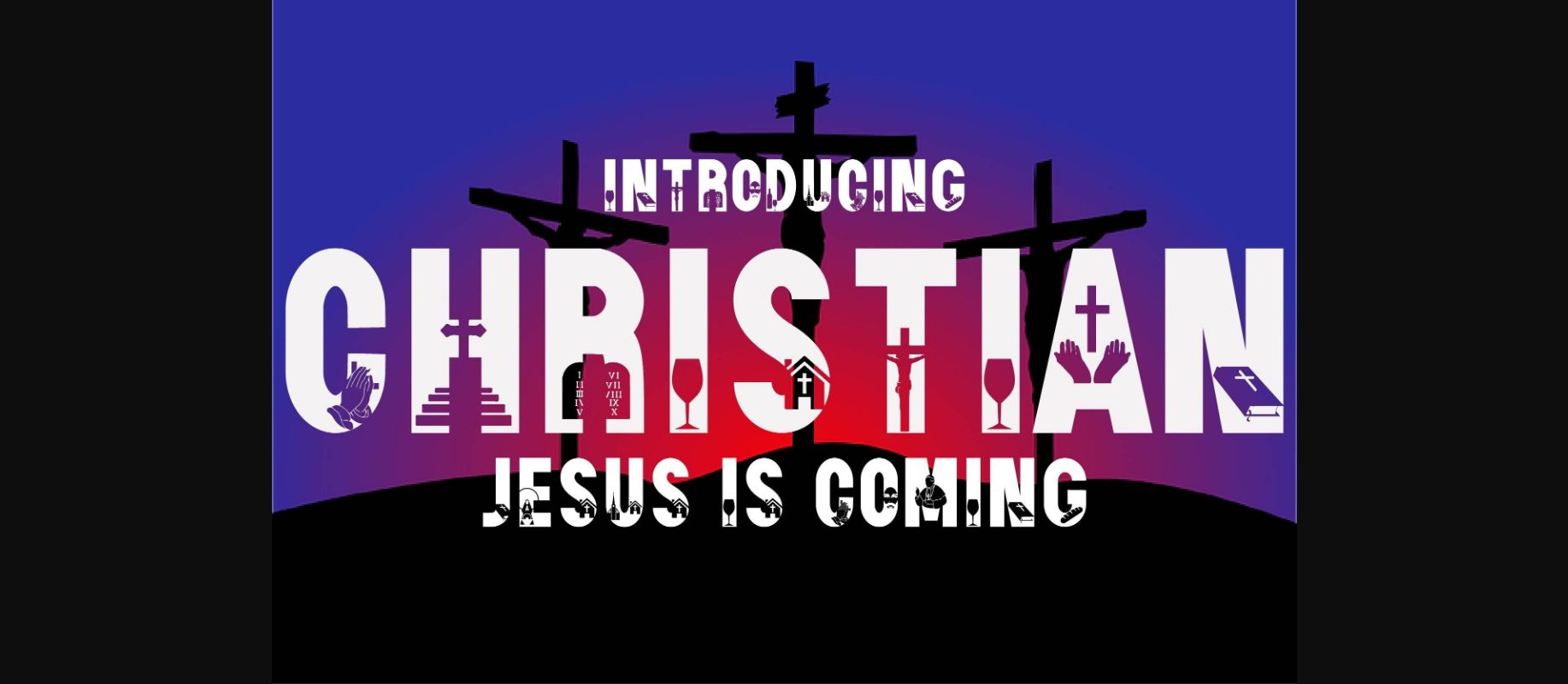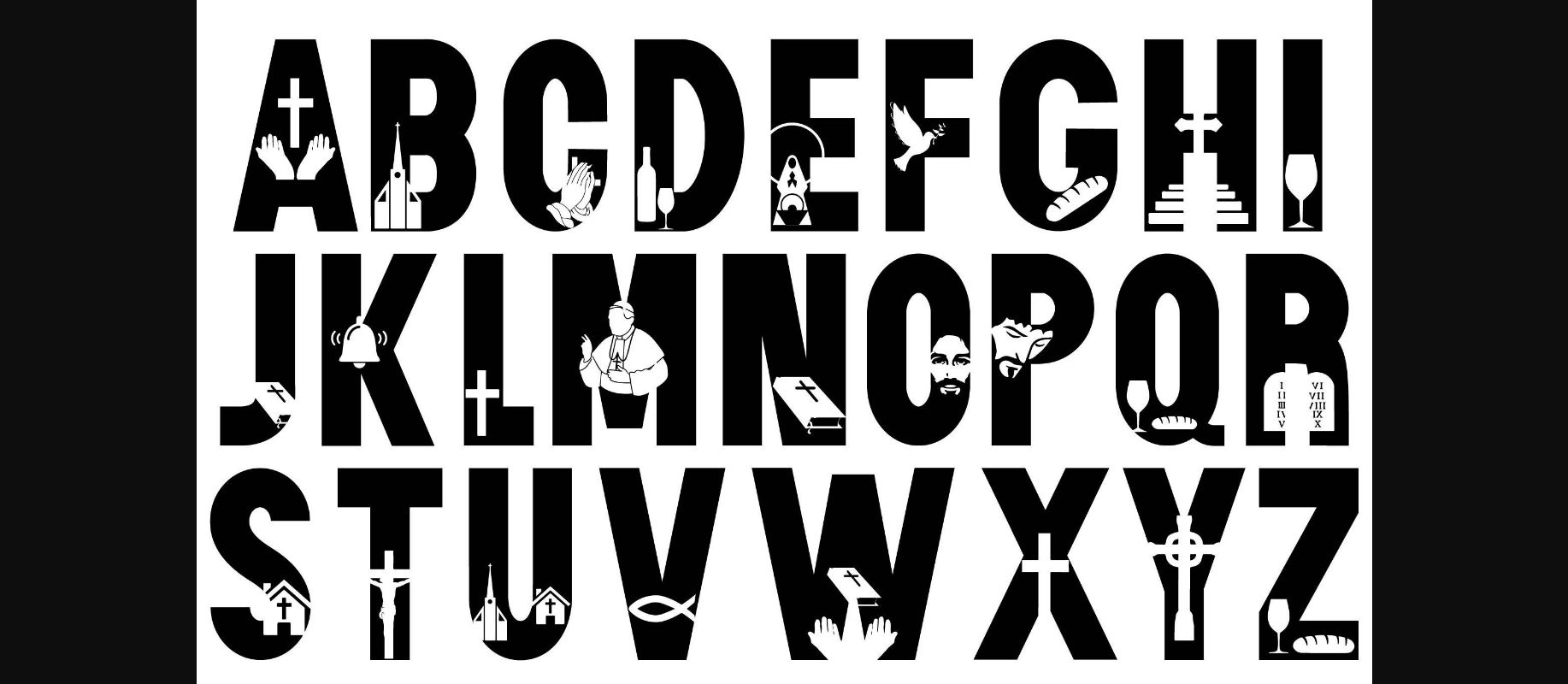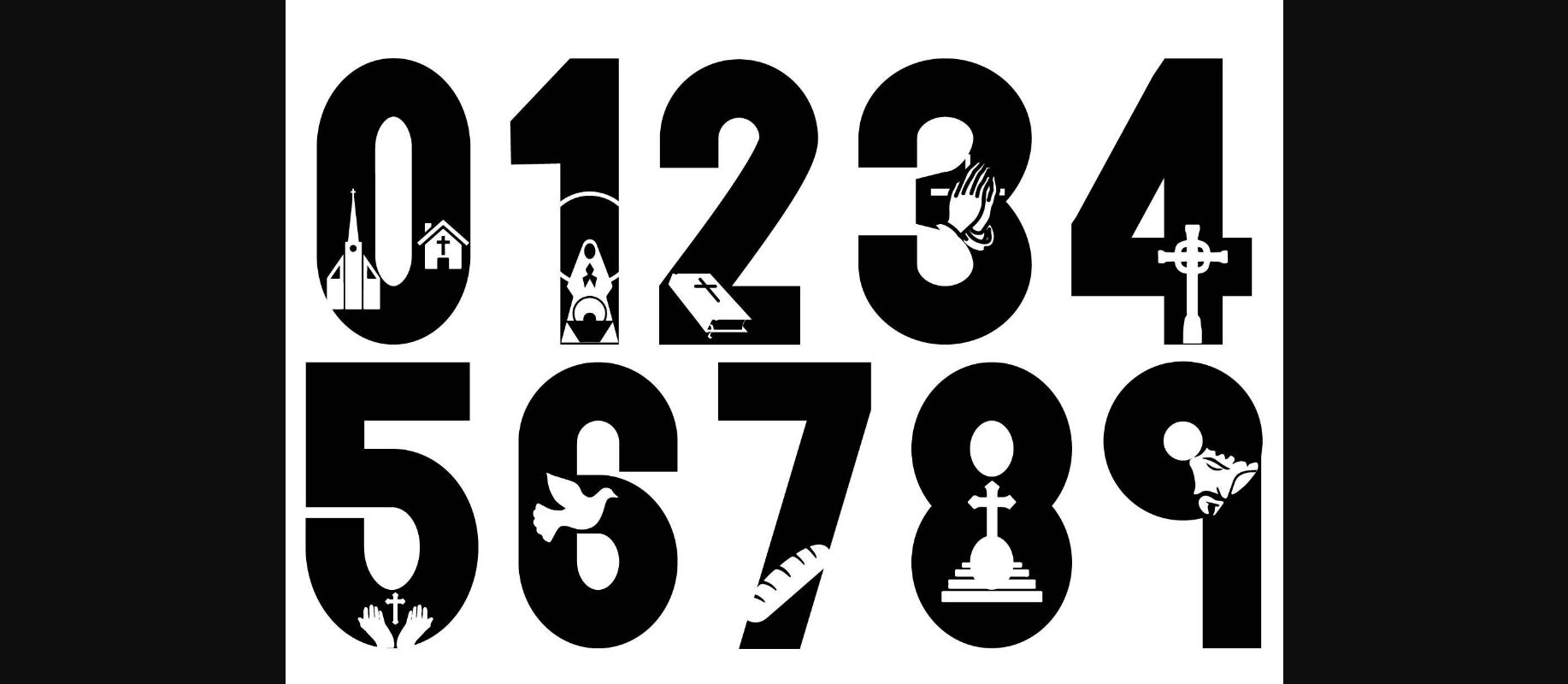
Christian Font
About Christian Font
Christian is a cool and original-looking decorative font perfect for logotypes, headlines, corporate identity, brand identity, apparel industry, posters, music, movies, games, magazines, books, comics, cartoons, YouTube, Instagram, websites, and any of your creative projects.